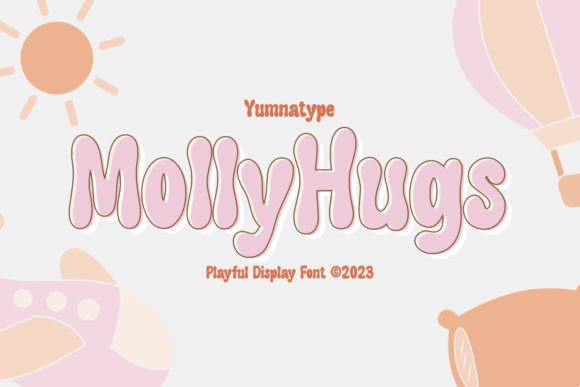
Introducing Molly Hugs Font, the ultimate solution for all your design needs! Created by the talented Yumna_Type, this display font is a game-changer when it comes to finding the perfect font for your project.
Are you tired of playing the font guessing game? Say goodbye to risking your client relationships and reputation with Molly Hugs Font. With its rounded and playful design, this font will add a touch of warmth and fun to every design you create.
Legibility is key, and Molly Hugs understands that. Its simple shapes and geometry make it easy on the eyes, ensuring that your message is conveyed effortlessly. No more struggling with overly detailed points that distract from your content – this font strikes the perfect balance.
But what sets Molly Hugs apart from the rest? It's all about the emotions it evokes. Imagine captivating your audience with a font that not only looks stunning but also tugs at their heartstrings. Whether you're designing a logo, a website, or any other creative project, Molly Hugs Font will be your secret weapon.
This font is more than just letters on a page – it's an experience. It invites your audience to connect on a deeper level, creating a lasting impression that sets you apart from the competition. Stand out from the crowd with Molly Hugs Font and watch your designs come to life.
Don't settle for mediocrity. Choose the best font for logo text with Molly Hugs Font. Experience the power of emotion-driven design, where every word matters and every detail counts. Elevate your projects with this captivating font that speaks volumes.